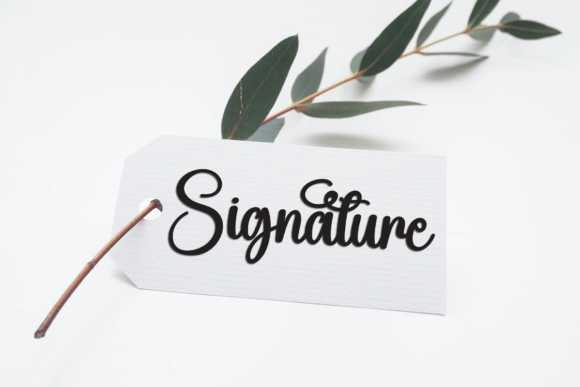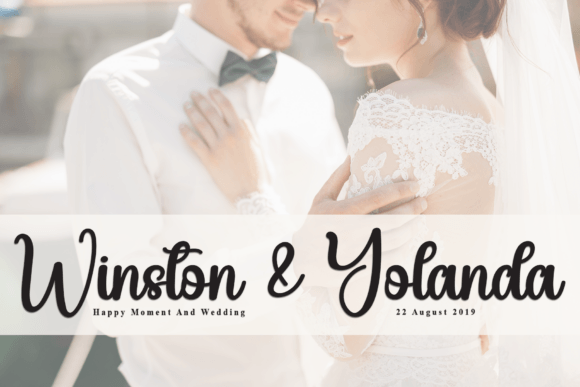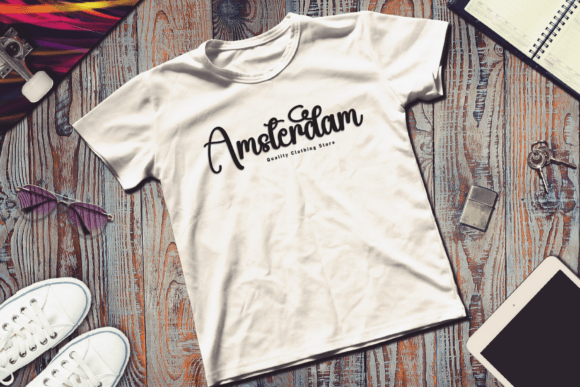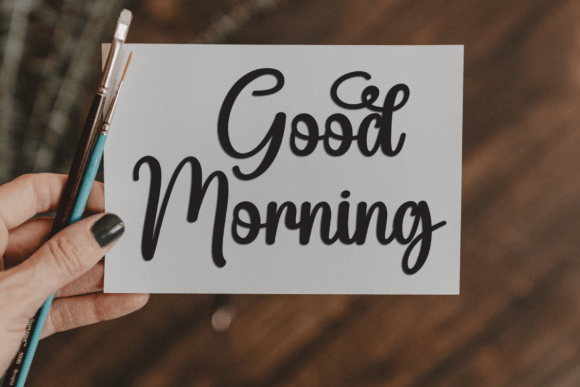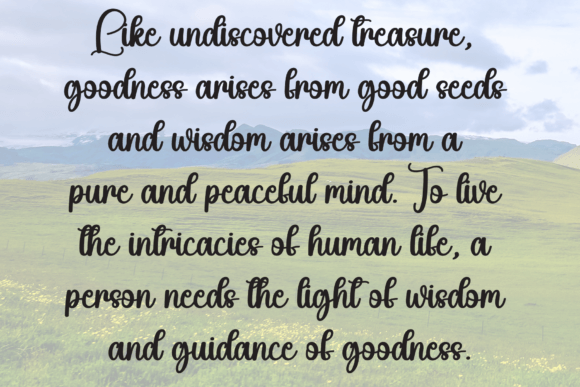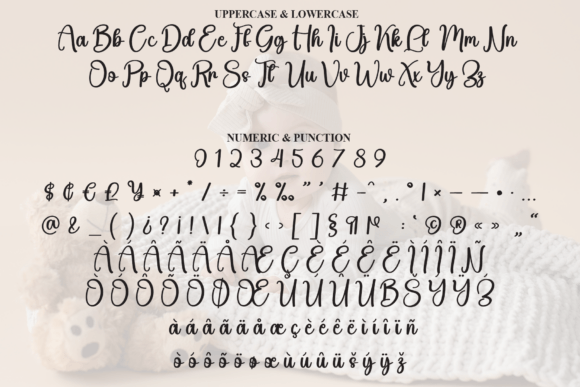
Baby Boho Font: The Perfect Handwritten Style for Your Creative Projects
Are you looking for a font that exudes warmth, coziness, and a touch of playfulness? Look no further than the Baby Boho font! This charming handwritten font is designed to capture the essence of a relaxed and friendly vibe, making it perfect for a wide range of creative projects. In this article, we’ll dive into the world of Baby Boho, exploring its unique features, uses, and benefits for designers and crafters.
The Unique Style of Baby Boho
Baby Boho is a one-of-a-kind handwritten font that boasts soft curves and a casual look, reminiscent of a friendly wave goodbye. Its playful letters are carefully crafted to convey a sense of warmth and approachability, making it an ideal choice for projects that require a personal touch. The font’s unique style is characterized by its:
- Soft and rounded letterforms, which give it a gentle and soothing appearance
- Playful and irregular shapes, which add a touch of whimsy and personality
- Warm and inviting texture, which makes it perfect for creating cozy and intimate designs
Perfect for Personal Notes and Invitations
Baby Boho is particularly well-suited for personal notes, invitations, and other projects that require a touch of warmth and personality. Whether you’re designing:
- Wedding invitations that need a romantic and whimsical touch
- Birthday cards that require a playful and celebratory feel
- Personal letters that need a warm and cozy tone
The Baby Boho font is sure to make your designs stand out and leave a lasting impression on your audience.
So, what makes Baby Boho a go-to font for designers and crafters? Here are just a few benefits of using this charming font:
- Easy to read: Despite its playful and irregular shapes, Baby Boho is surprisingly easy to read, making it perfect for body text and longer designs
- Versatile: Baby Boho can be used for a wide range of projects, from digital designs to print materials, and even handmade crafts
- Customizable: With its unique style and playful letters, Baby Boho can be easily customized to fit your brand’s personality and aesthetic
Using Baby Boho in Your Designs
Ready to incorporate Baby Boho into your designs? Here are a few tips to get you started:
- Pair it with bold fonts: Baby Boho’s playful and whimsical style pairs perfectly with bold and modern fonts, creating a striking contrast that’s sure to grab attention
- Experiment with colors: The warm and inviting texture of Baby Boho lends itself perfectly to a wide range of colors, from soft pastels to rich jewel tones
- Add illustrations: Baby Boho’s playful style is perfectly suited to illustrations and hand-drawn elements, making it a great choice for designs that feature custom artwork